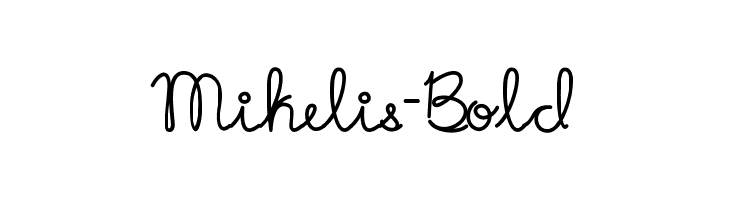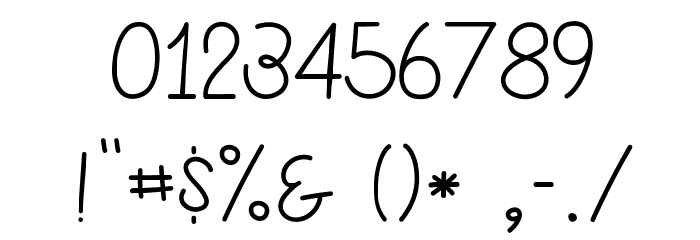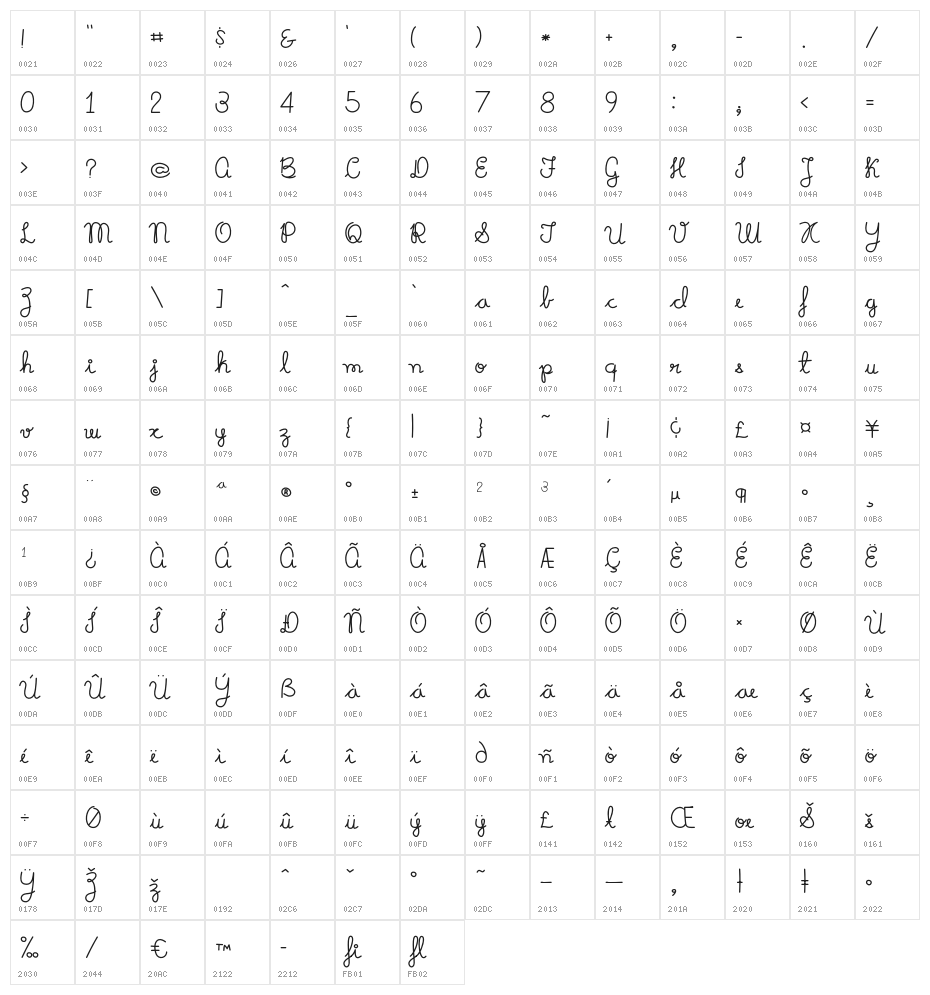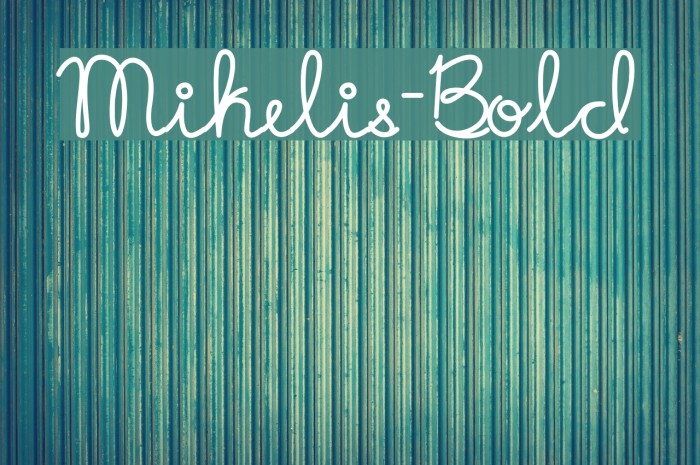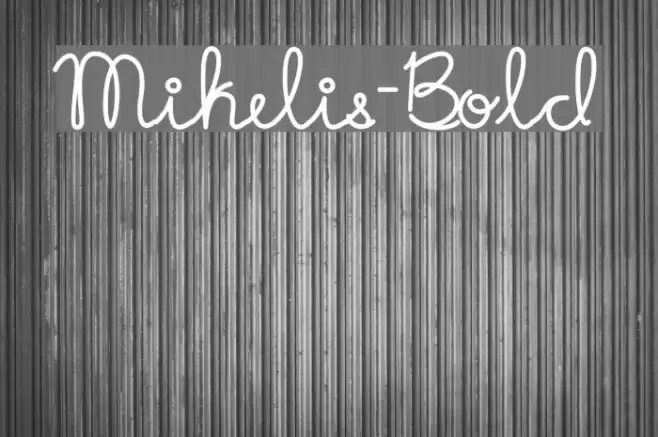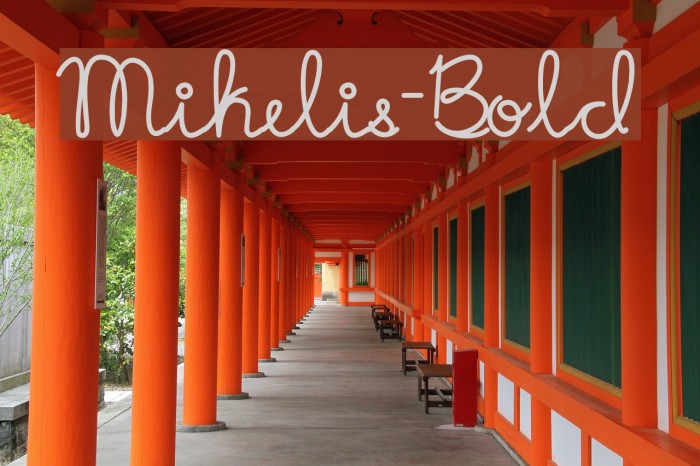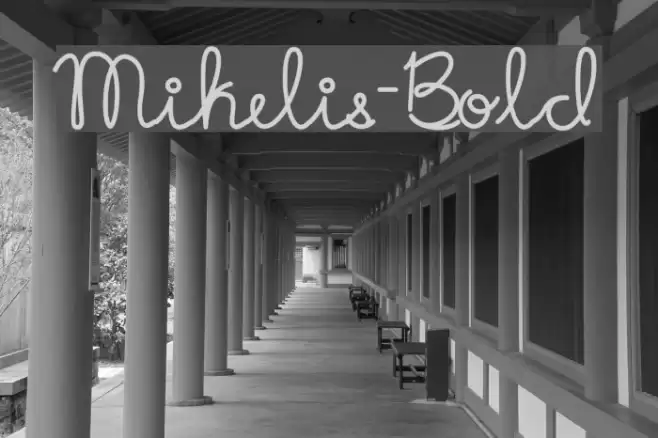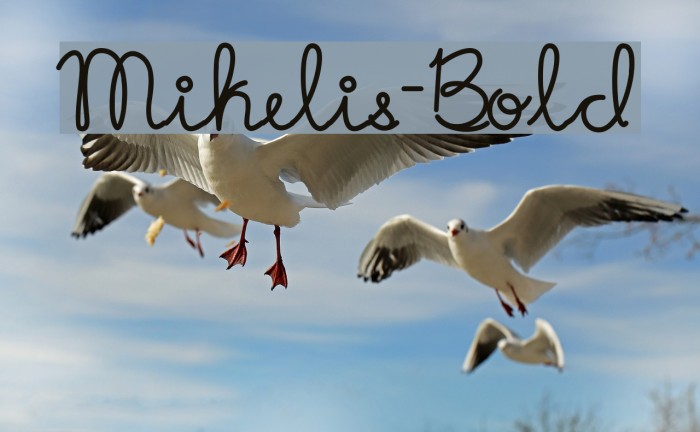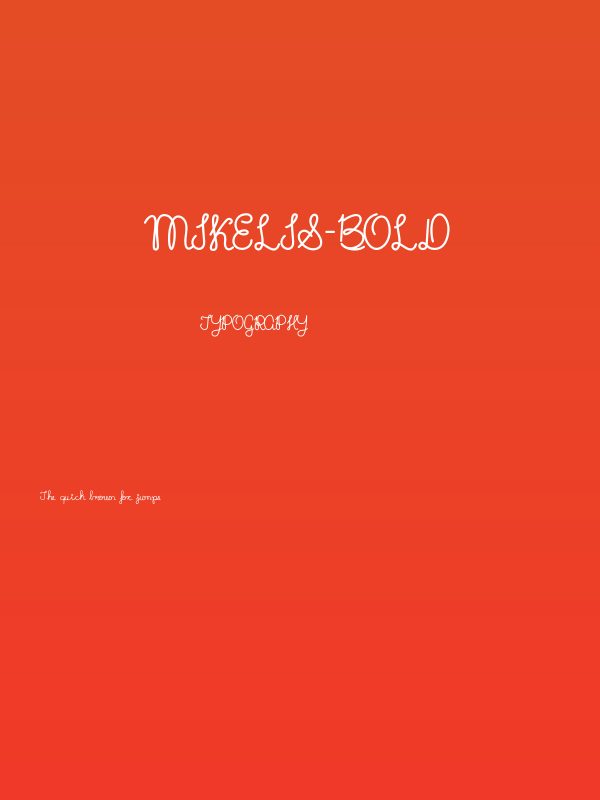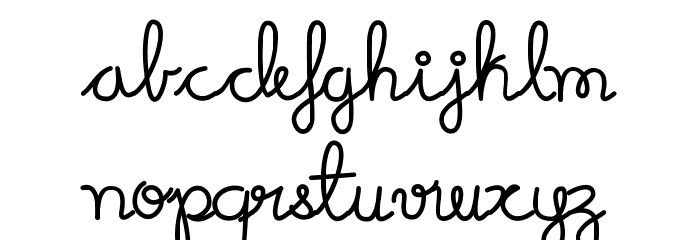
Mikelis-Bold Font
Mikelis-Bold Description
This font features a playful and whimsical script style with a handwritten appearance. The characters are interconnected, giving it a flowing and continuous look. The uppercase letters are bold and expressive, while the lowercase letters maintain a consistent style with slight variations in height and width. The numerals are clear and easy to read, matching the overall aesthetic of the font. Special characters are included, maintaining the same playful style. This font is ideal for projects that require a personal touch or a creative flair.
| Proposed Projects | Ideal for greeting cards, invitations, personal branding, and creative projects that require a whimsical touch. |